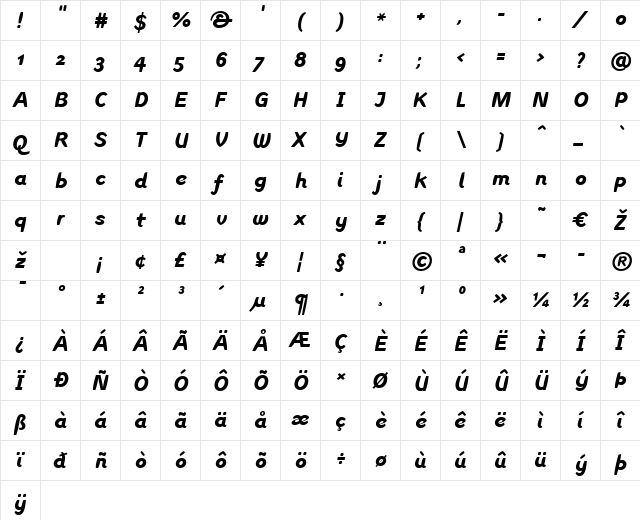
LTInagur BoldItalic Regular Font Preview
| Designer | Hans-Jurgen Ellenberger |
Design Context for LTInagur BoldItalic Typeface
LTInagur BoldItalic takes a measured approach to typography — its balanced proportions and neutral character make it a reliable workhorse for both digital and print work. Its italic angle brings a sense of urgency and motion to the letterforms. Its bold stroke weight gives it real presence on the page.
Pro Tip: Try LTInagur BoldItalic for annotation and caption copy alongside an upright companion — the contrast in angle creates a dynamic but ordered typographic system.